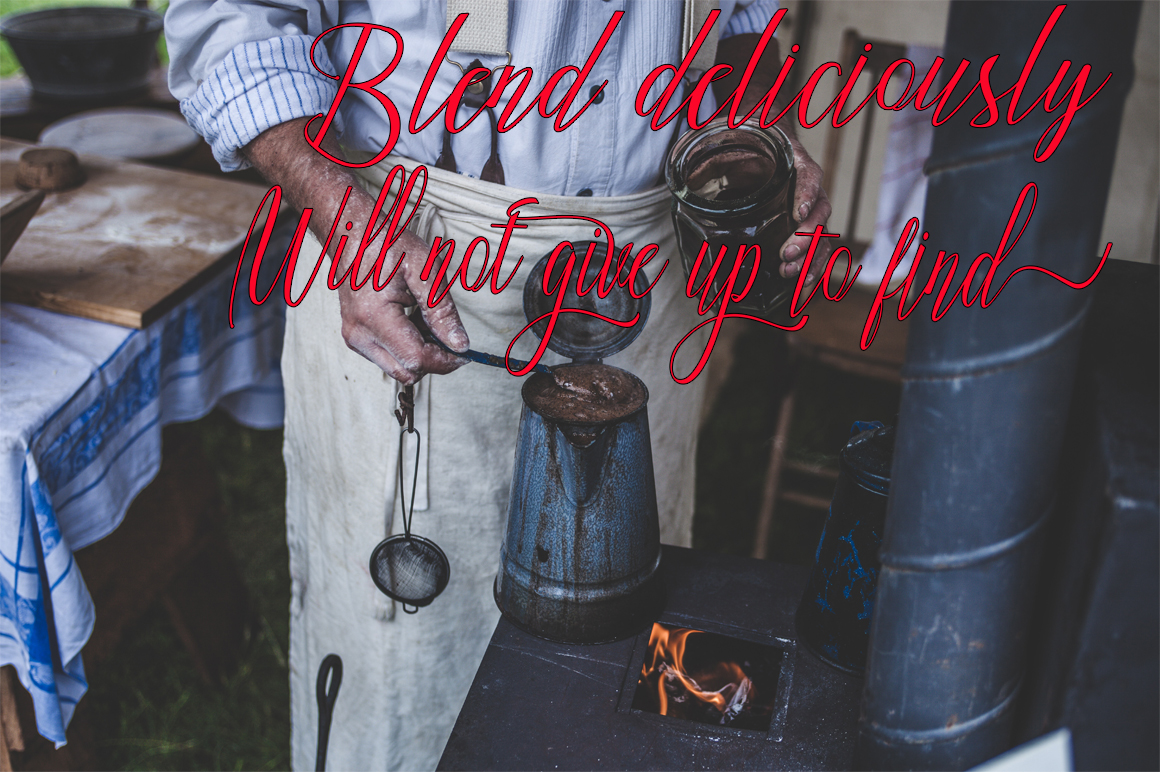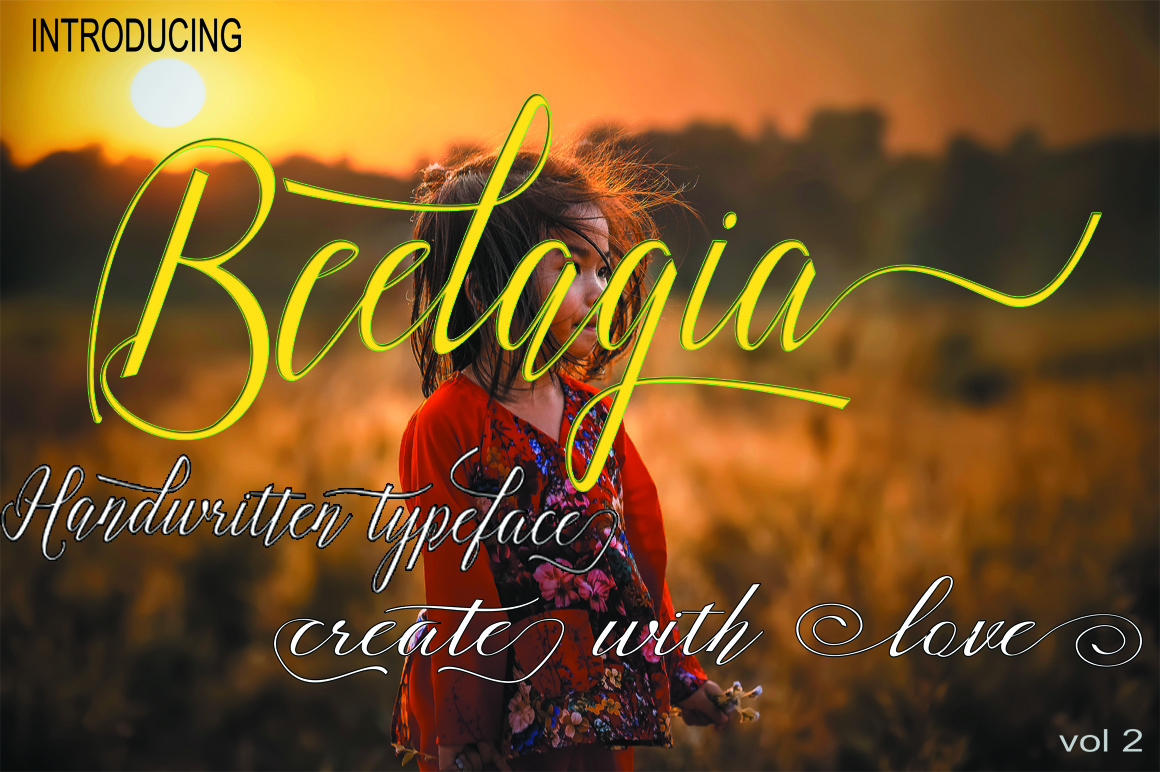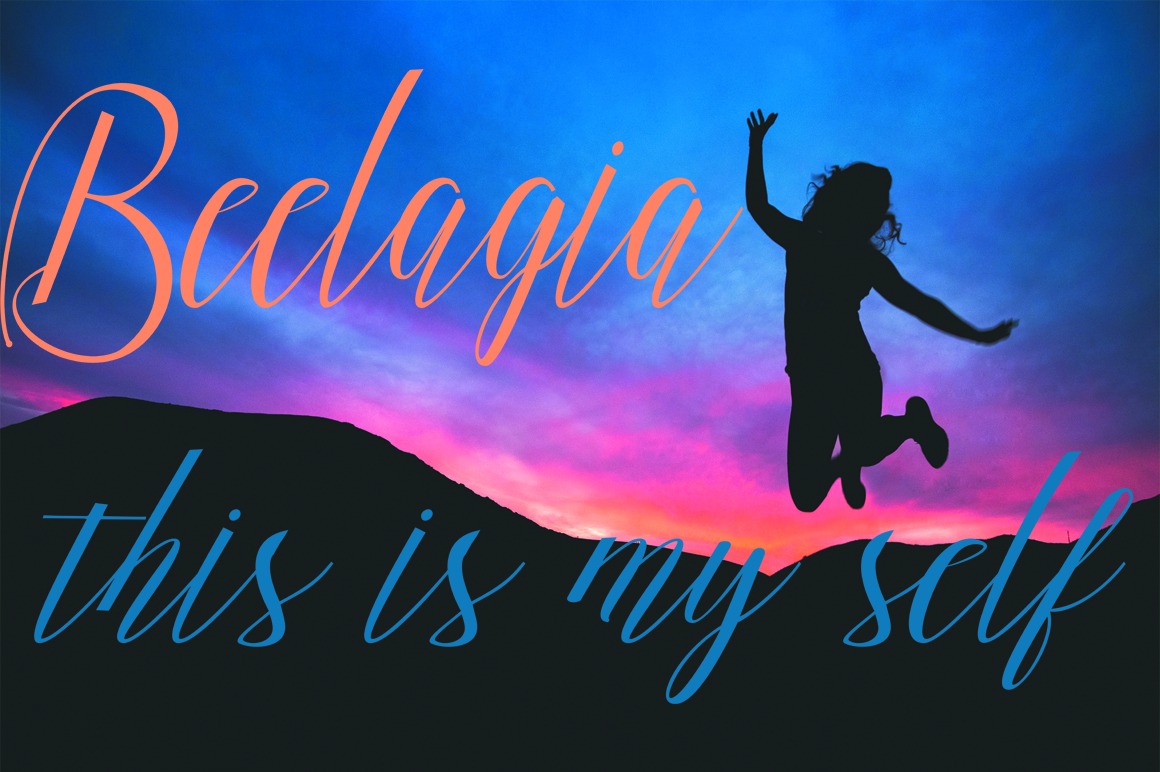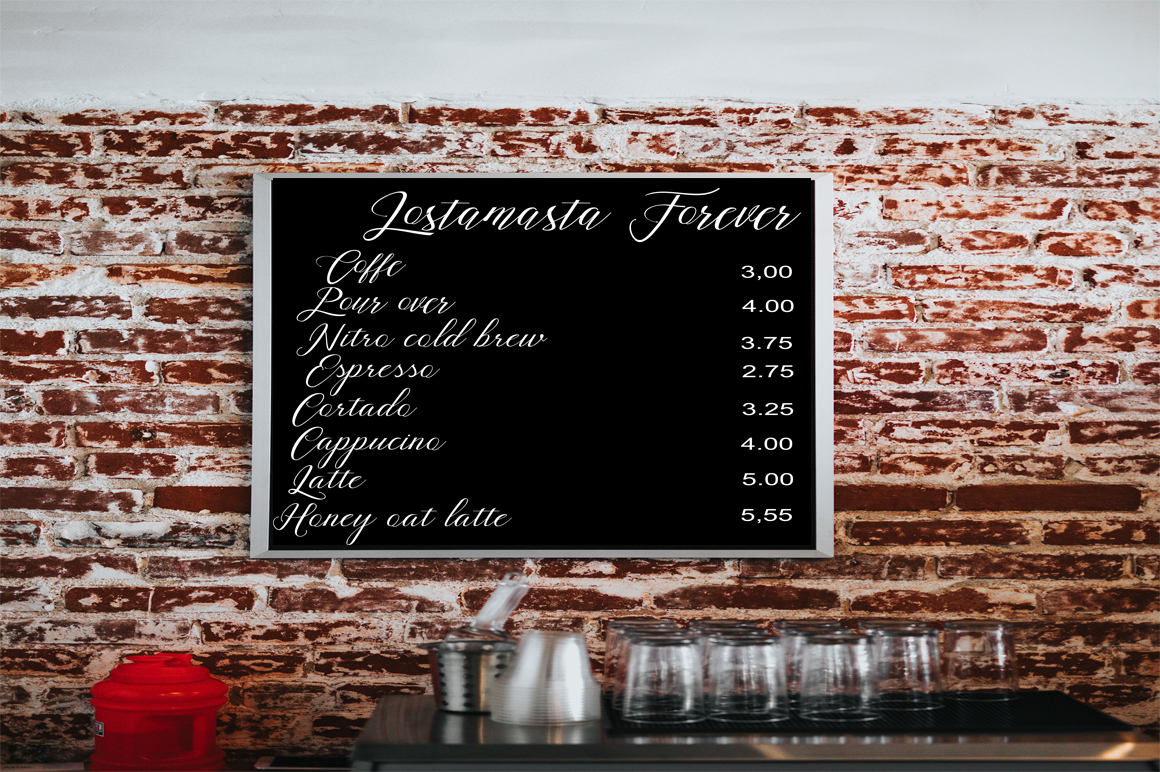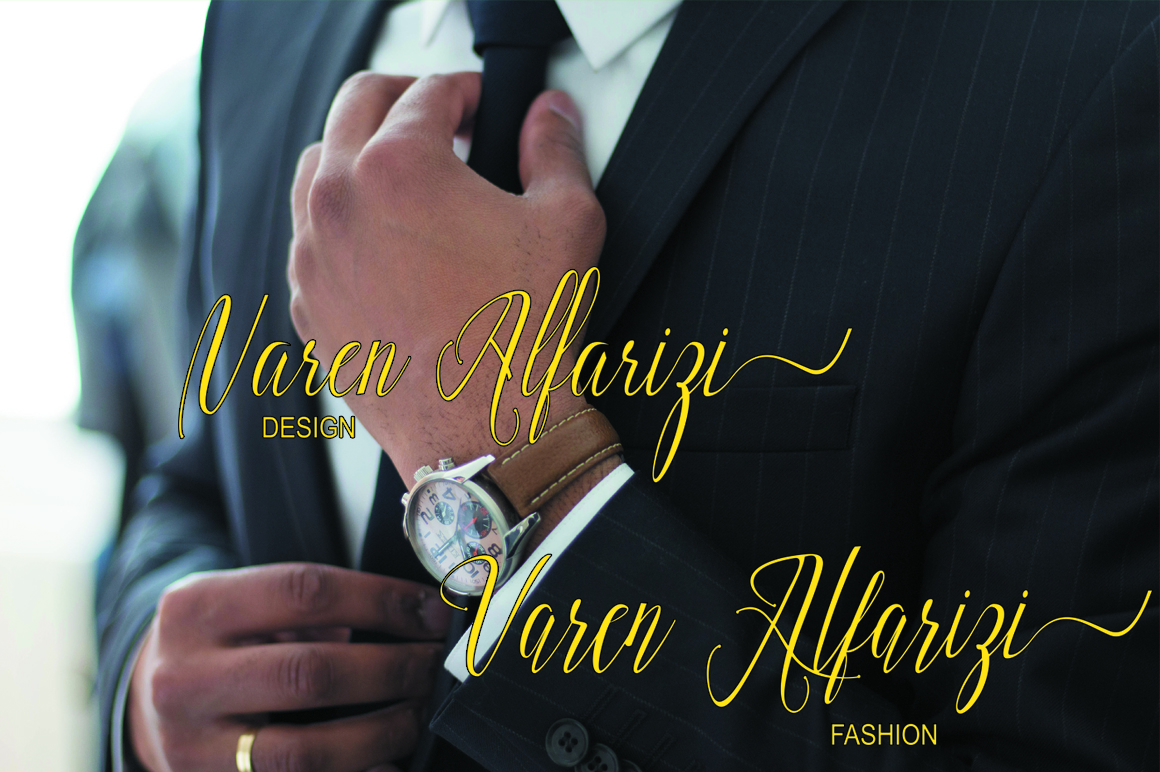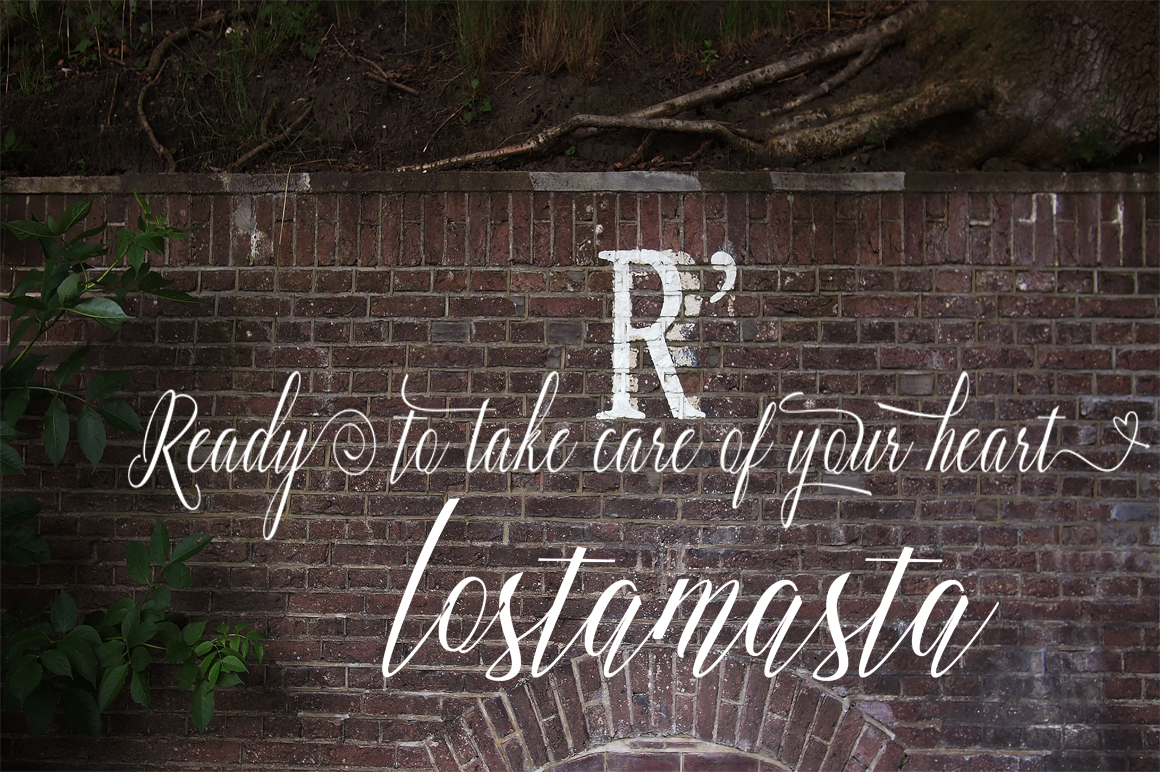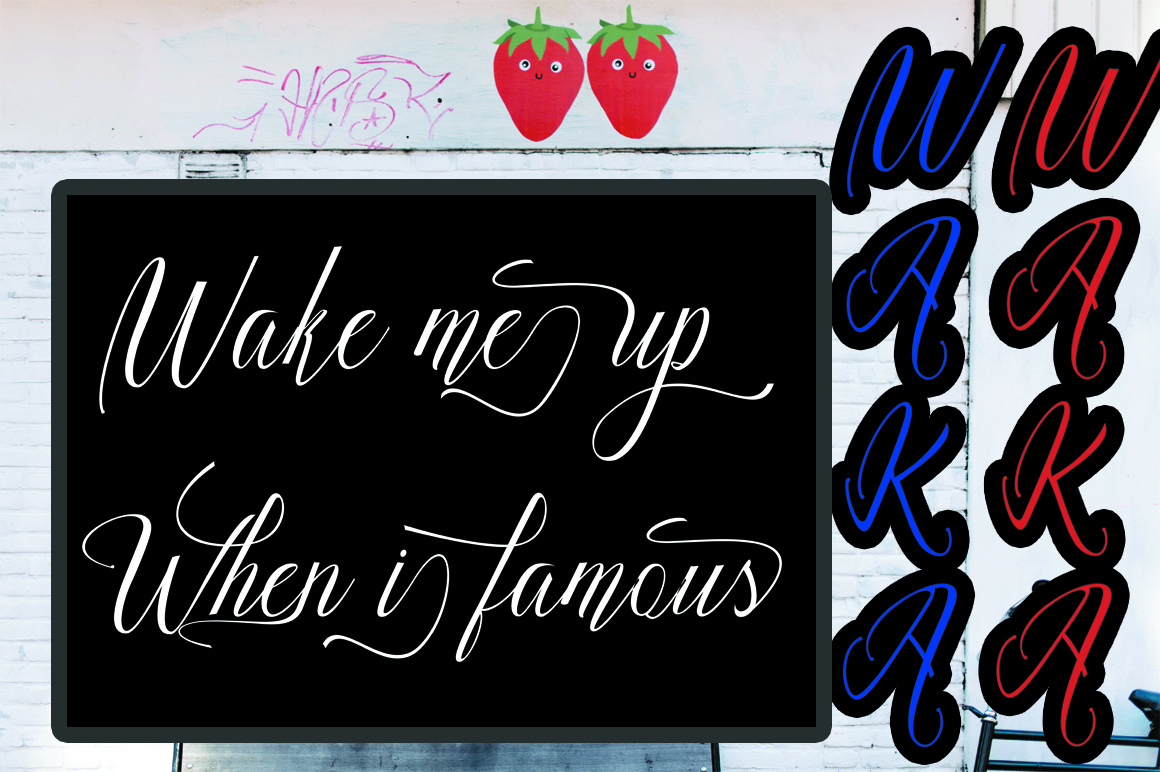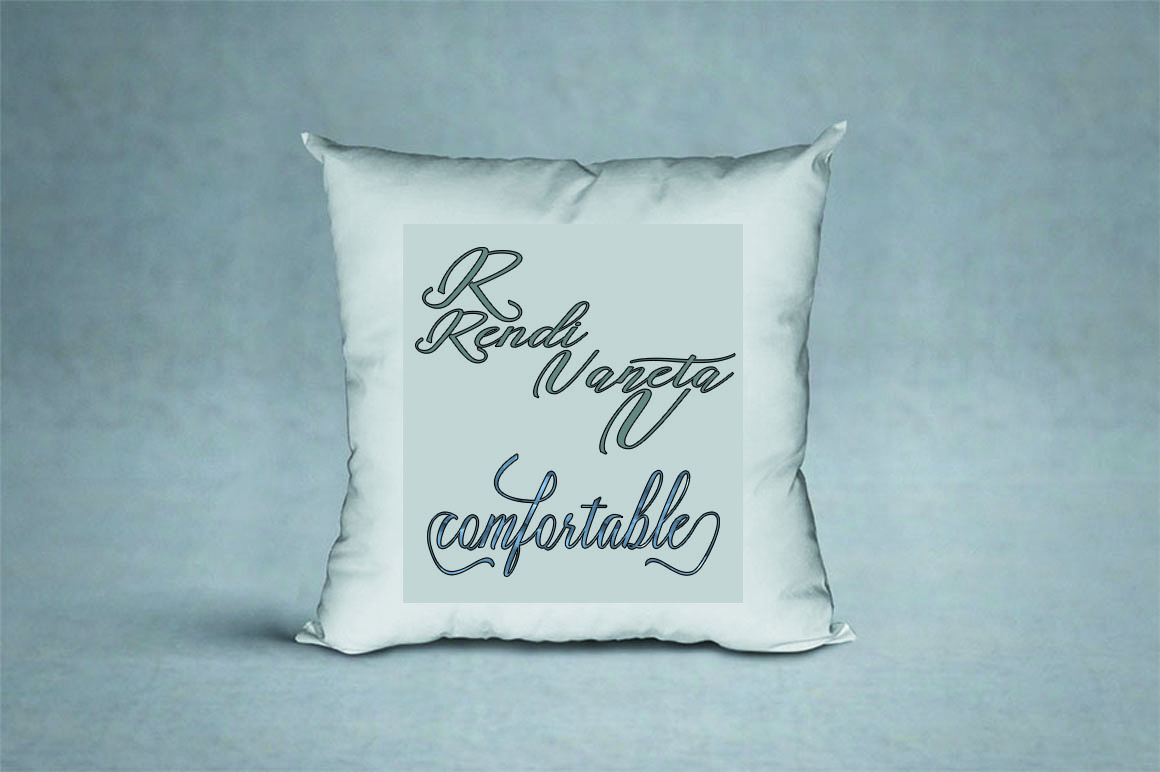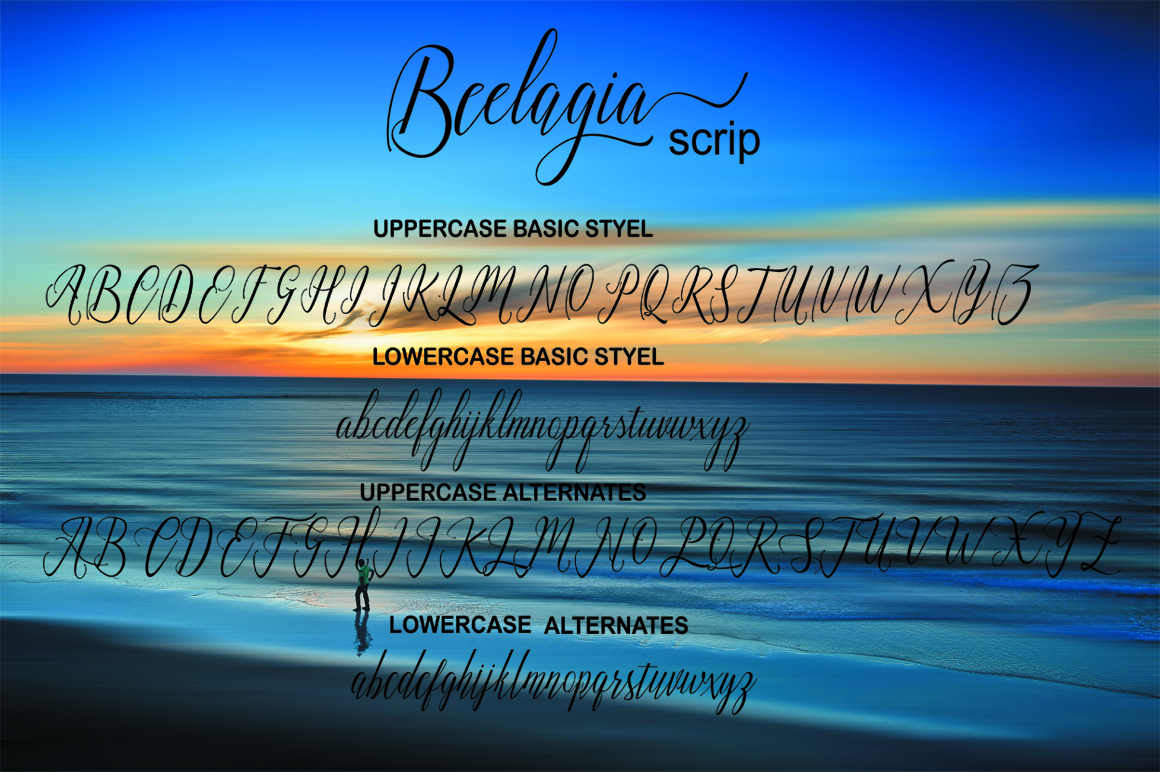
Beelagia Font
Beelagia is a beautiful and flourished modern script font, with a handmade calligraphic style. This font features incredibly decorative character alternates, and always has a charming dancing appeal.